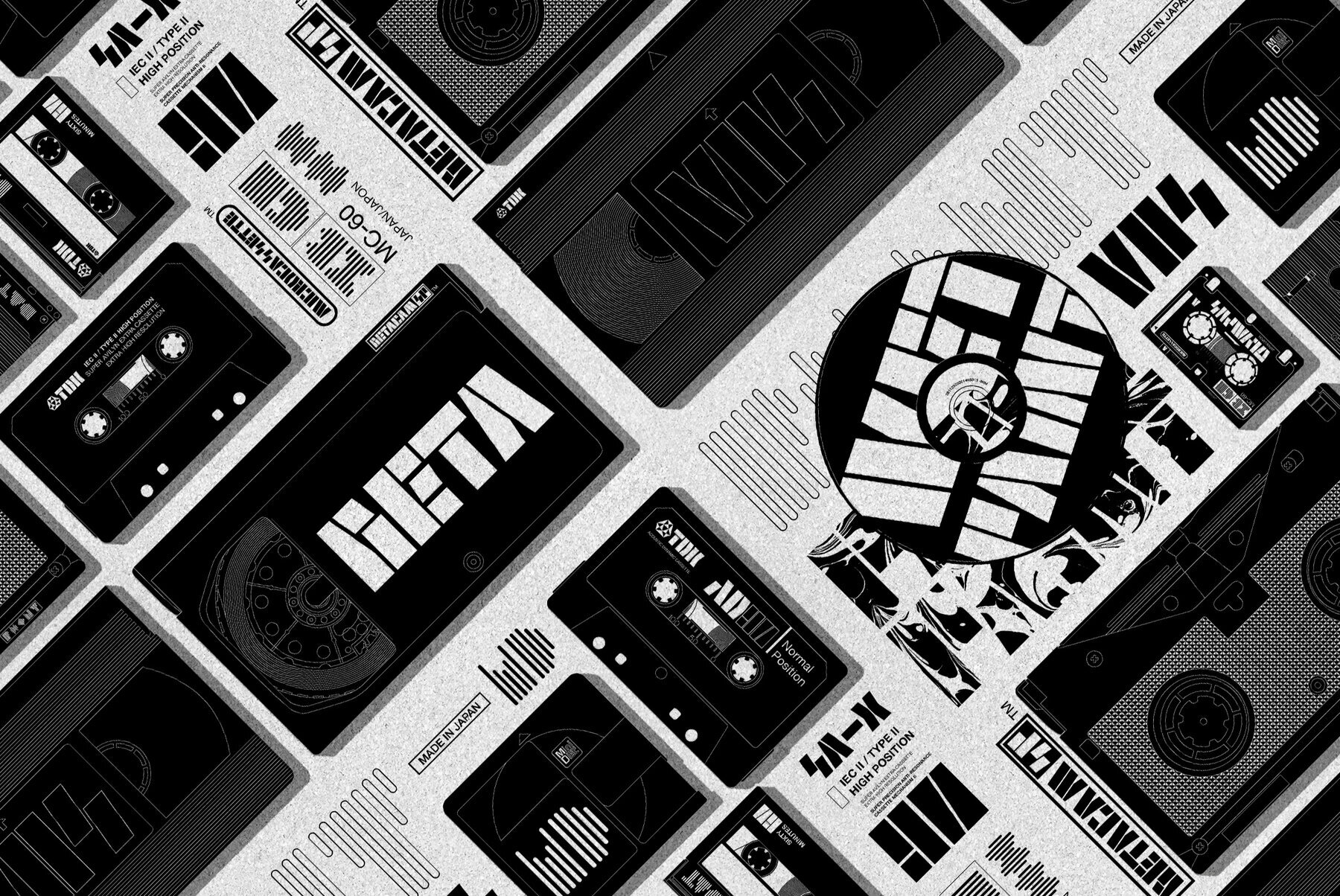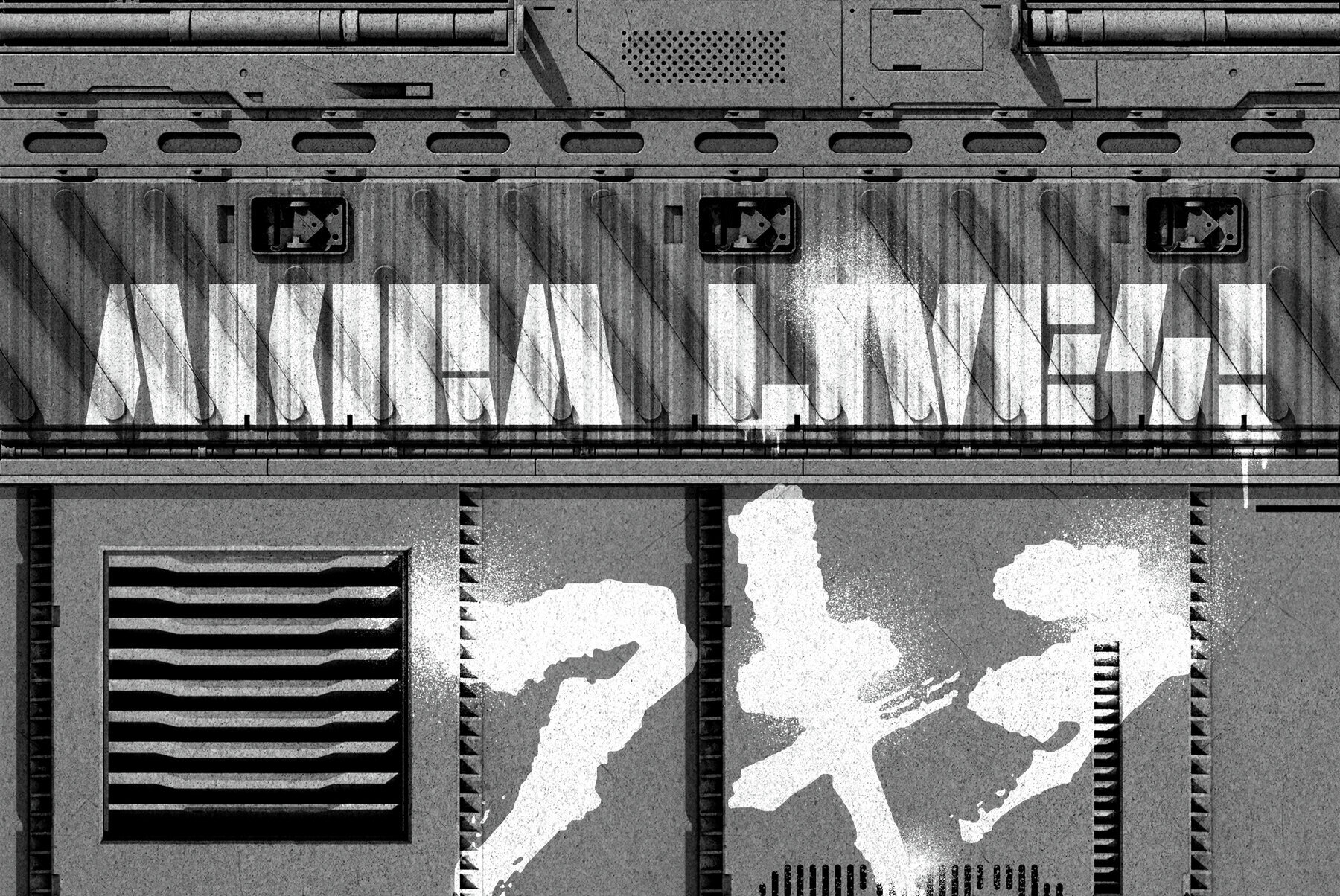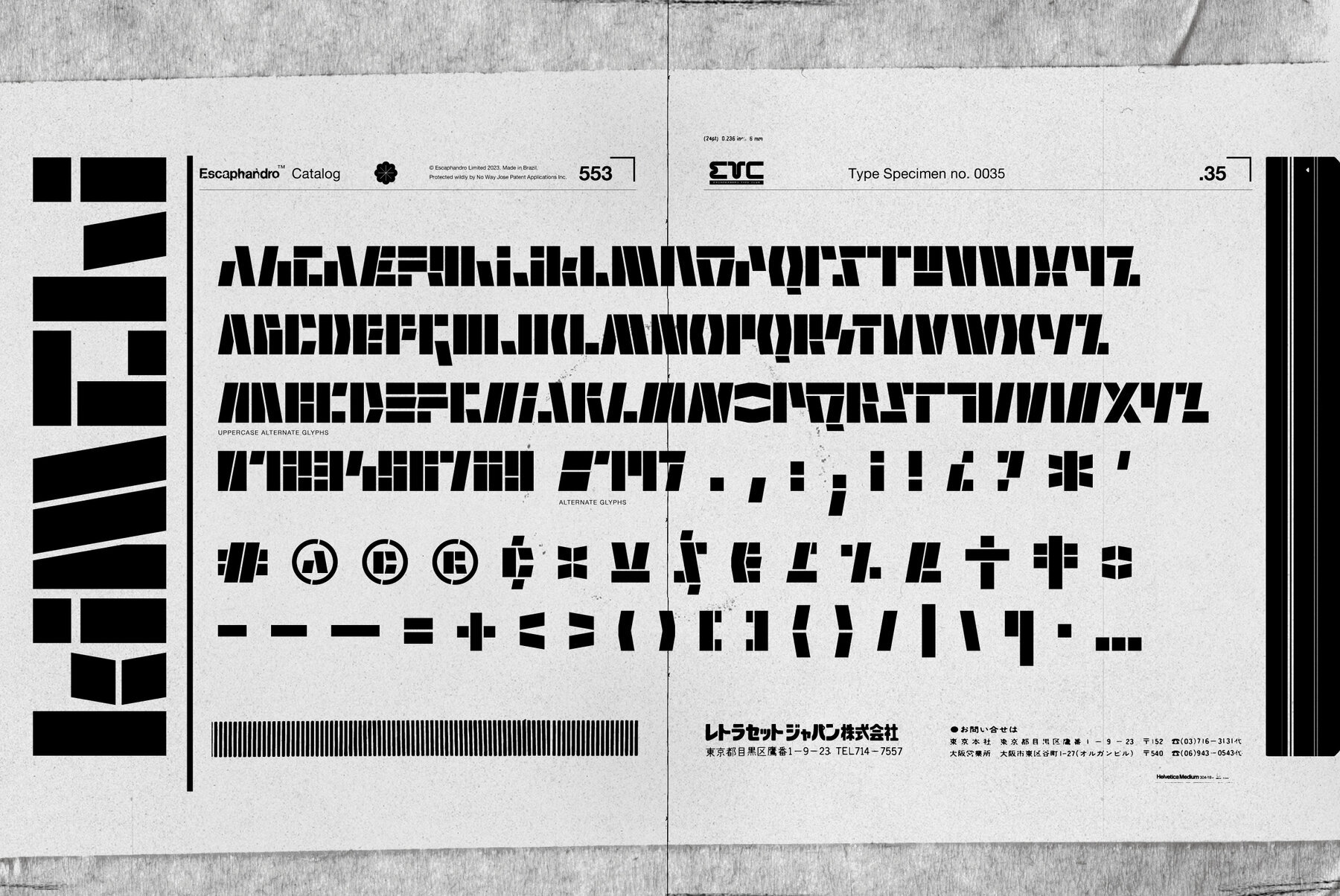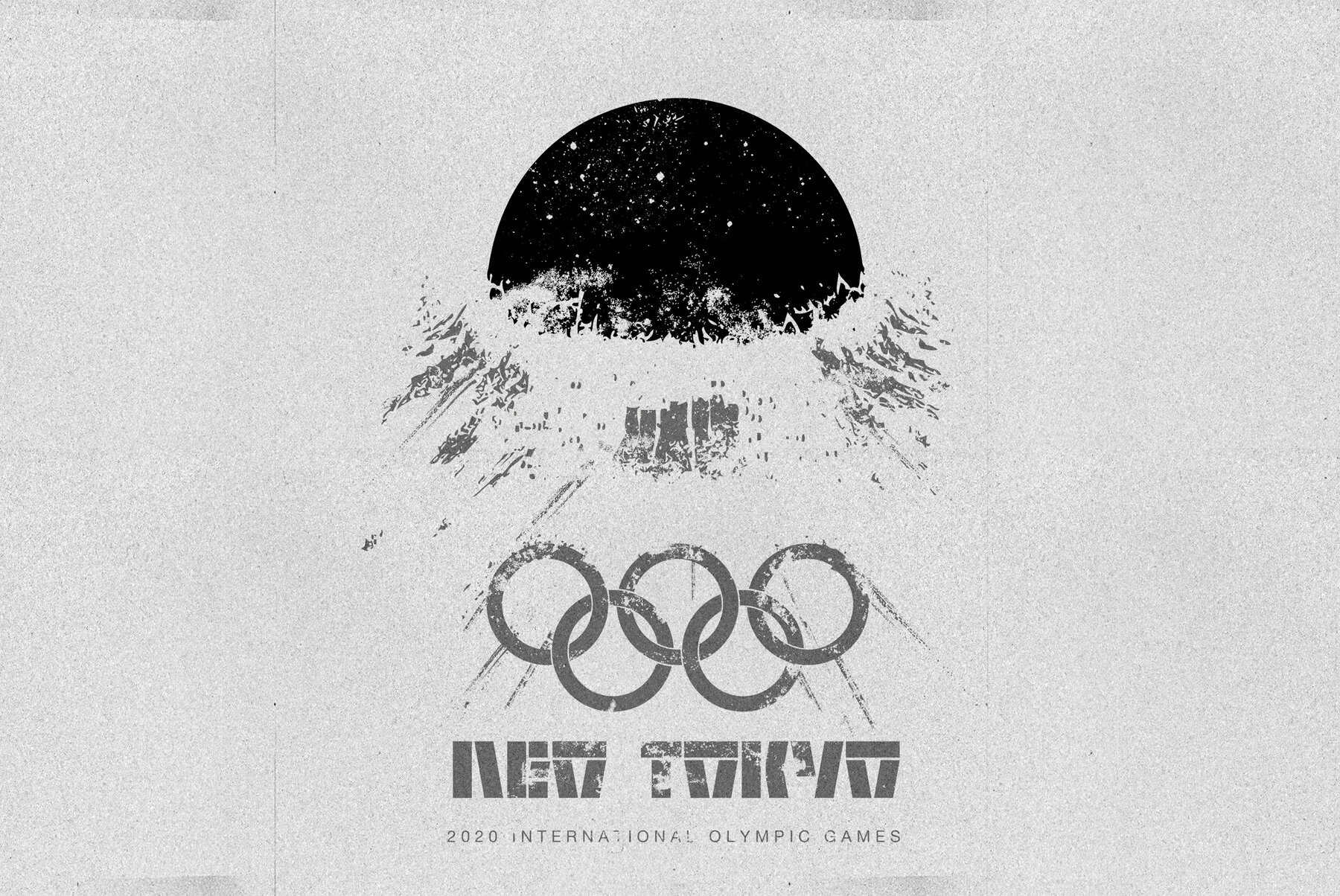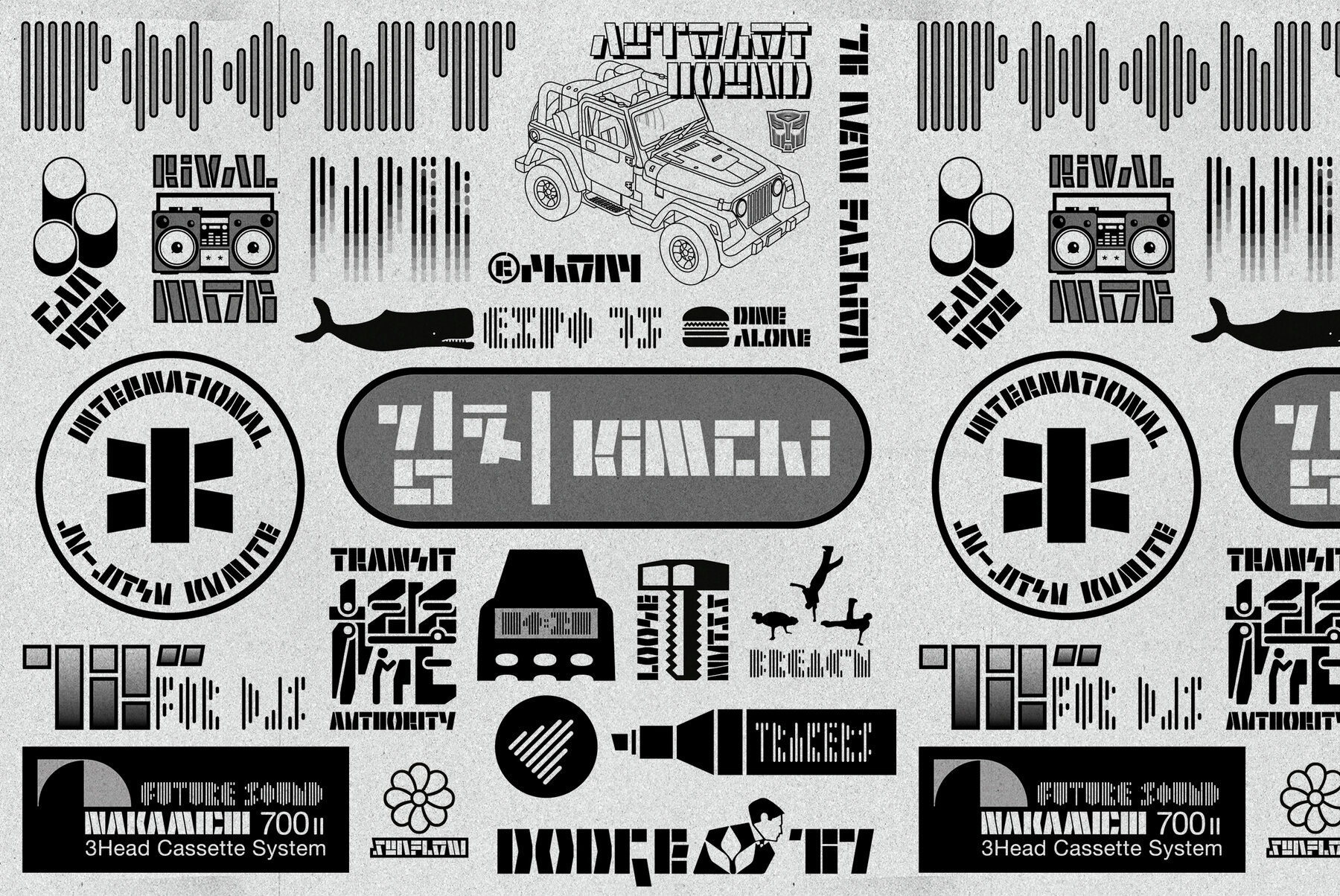
Kimchi Font
Kimchi is a contemporary stencil typeface inspired by asian letterforms and (of course) movie titles and comic books. Contains a set of alternate uppercase characters and numerals. Ideal for cool titles and logotype design.